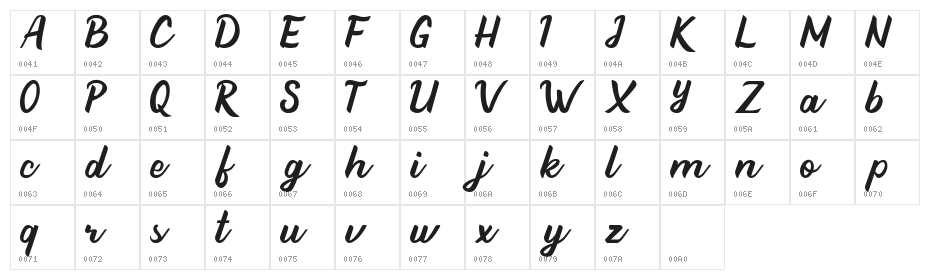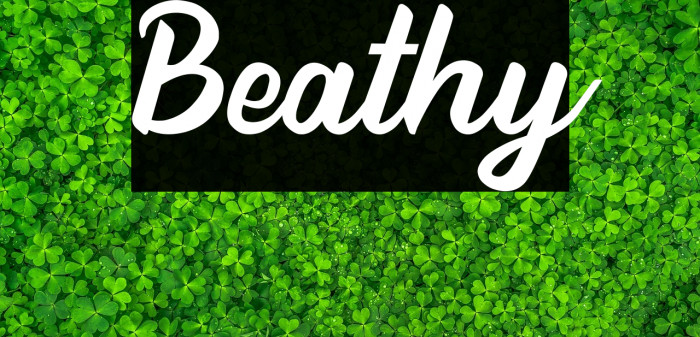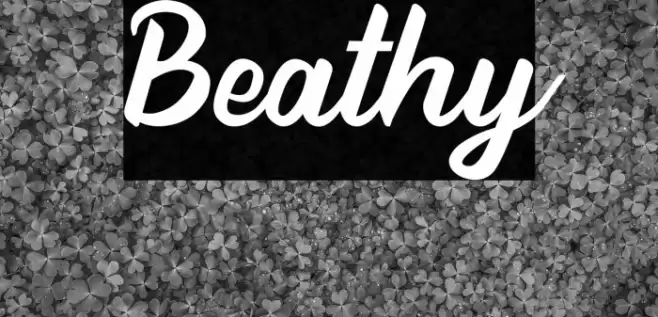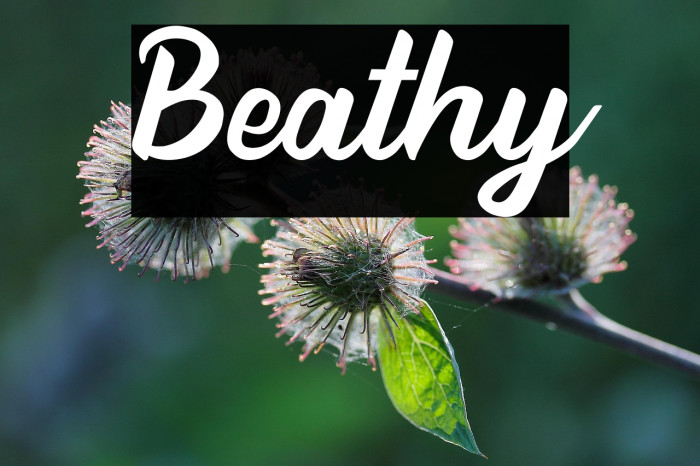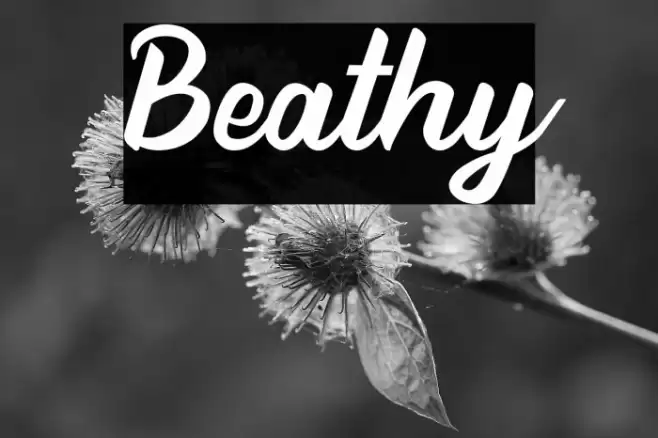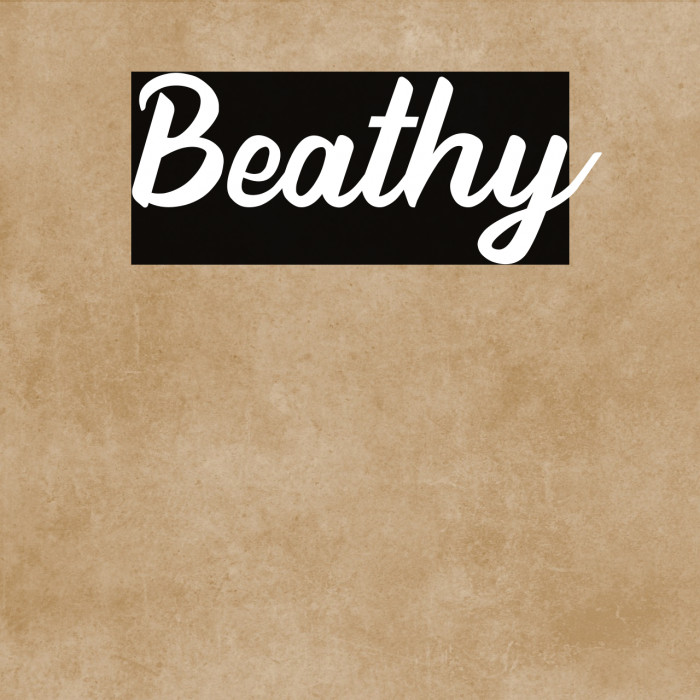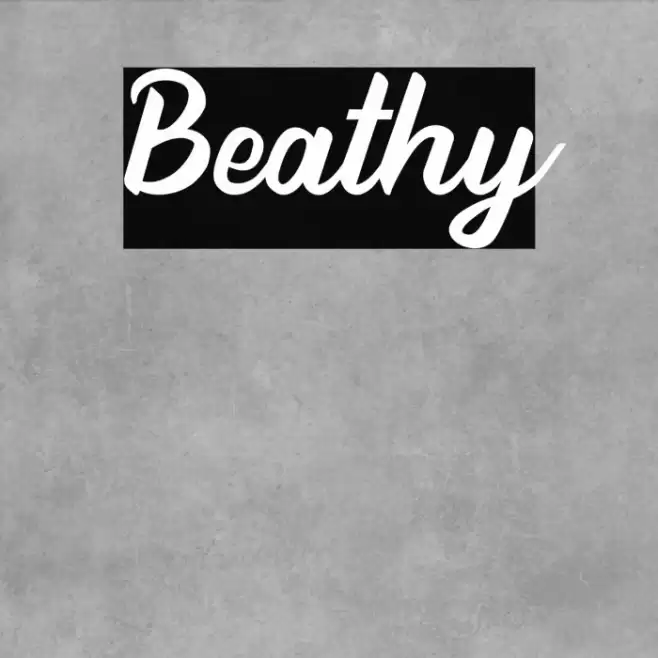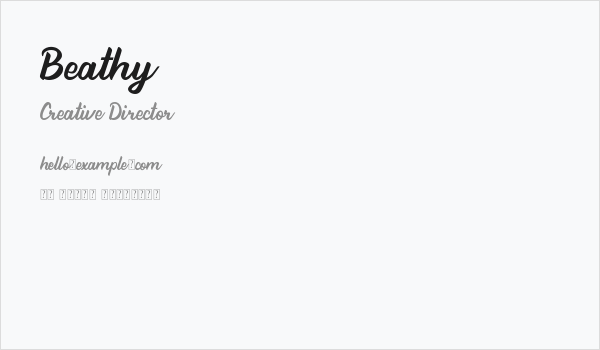
Beathy Font
Beathy Description
This font exhibits a dynamic and flowing script style, characterized by its bold and expressive strokes. The uppercase letters are slightly slanted, giving a sense of movement and energy, while the lowercase letters maintain a consistent rhythm with smooth curves and loops. The overall appearance is both elegant and modern, making it suitable for a variety of creative applications. The font's design is cohesive, with a harmonious balance between the thick and thin strokes, adding to its visual appeal. It is versatile enough to be used in both formal and informal contexts, providing a touch of sophistication and flair.
| Proposed Projects | Ideal for branding, invitations, greeting cards, and creative design projects requiring a touch of elegance and modernity. |